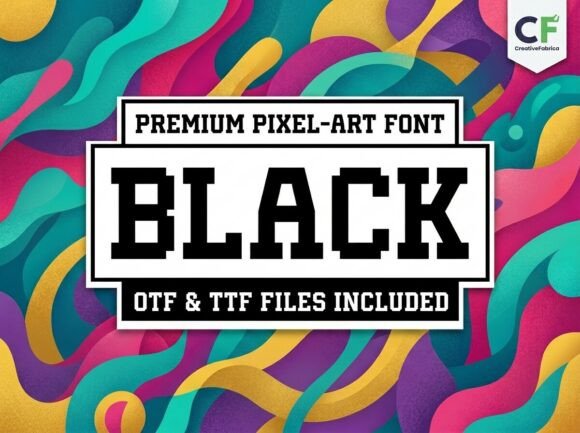
The Retro Revival: How Black Font Can Elevate Your Digital Designs
I still remember the design project that led me to discover Black Font. I was working on a retro-style video game poster, and I was struggling to find the perfect font that captured the nostalgic feel I was going for. The client wanted something that would transport their audience back to the 8-bit era of classic arcade games. After hours of scouring the internet, I stumbled upon Black Font, and it was love at first sight. The massive, block-style letterforms with a rhythmic “stepped” edge instantly resonated with my design vision.
An Honest Review of Black Font
What I Love About Black Font ✨
- ✅ Retro-gaming aesthetic: Black Font perfectly captures the nostalgic feel of classic arcade games, making it ideal for indie game development titles, esports branding, and gaming-related designs.
- ✅ Heavy structural weight: The font’s bold and sturdy design makes it perfect for high-impact headers, titles, and emphasis text.
- ✅ Pixel-perfect personality: Black Font’s pixelated design ensures that it remains crisp and clear even at small sizes, making it suitable for various digital applications.
- ⚠️ Limited use cases: While Black Font excels in retro-gaming and grunge-inspired designs, it may not be the best choice for more formal or traditional designs.
- ⚠️ Glyph limitations: As with any font, there may be limitations to the available glyphs, which could impact its use in certain design projects.
A Practical Guide to Using Black Font
- Experiment with OpenType features, such as stylistic alternates, to add visual interest to your text.
The Designer Inspiration Behind Black Font
Black Font was inspired by the classic arcade games of the 8-bit era. The designer, who wishes to remain anonymous, was a huge fan of retro gaming and wanted to create a font that captured the nostalgic feel of those iconic games. The result is a font that is both bold and pixel-perfect, making it perfect for use in indie game development, esports branding, and gaming-related designs.
| Font Name | Black Font |
| What is Black Font best used for? | Black Font is best used for indie game development titles, esports branding, tech-focused editorial layouts, and high-impact “gaming-and-grunge” social media headers. |
| Is Black Font suitable for body text? | No, Black Font is best used for headlines, titles, and emphasis text due to its bold and pixelated design. |